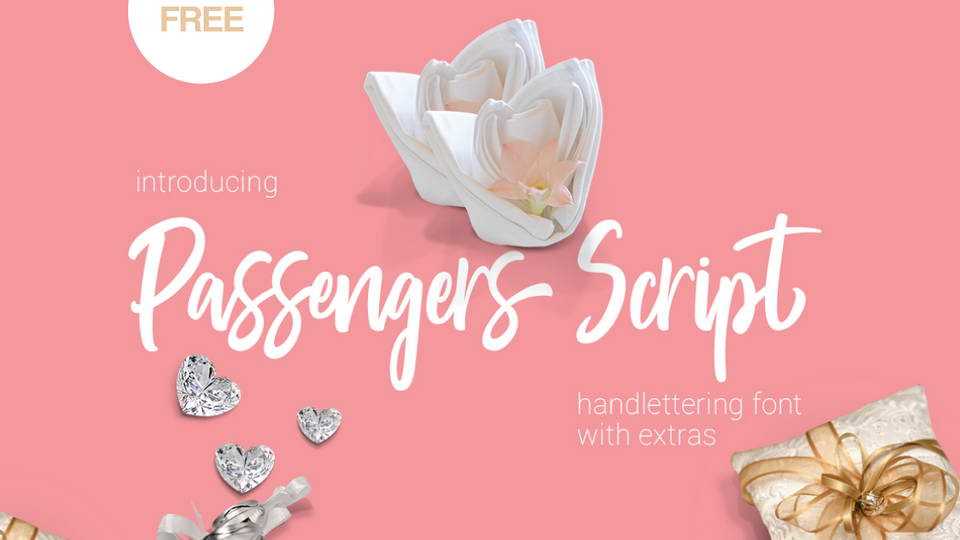
Download Passengers Script – an amazing hand lettered font. It’s very suitable for various types of projects one of which can be used for branding, wedding invitation, magazine, flyer, website and other as you want.
Designer: Pathero Studio